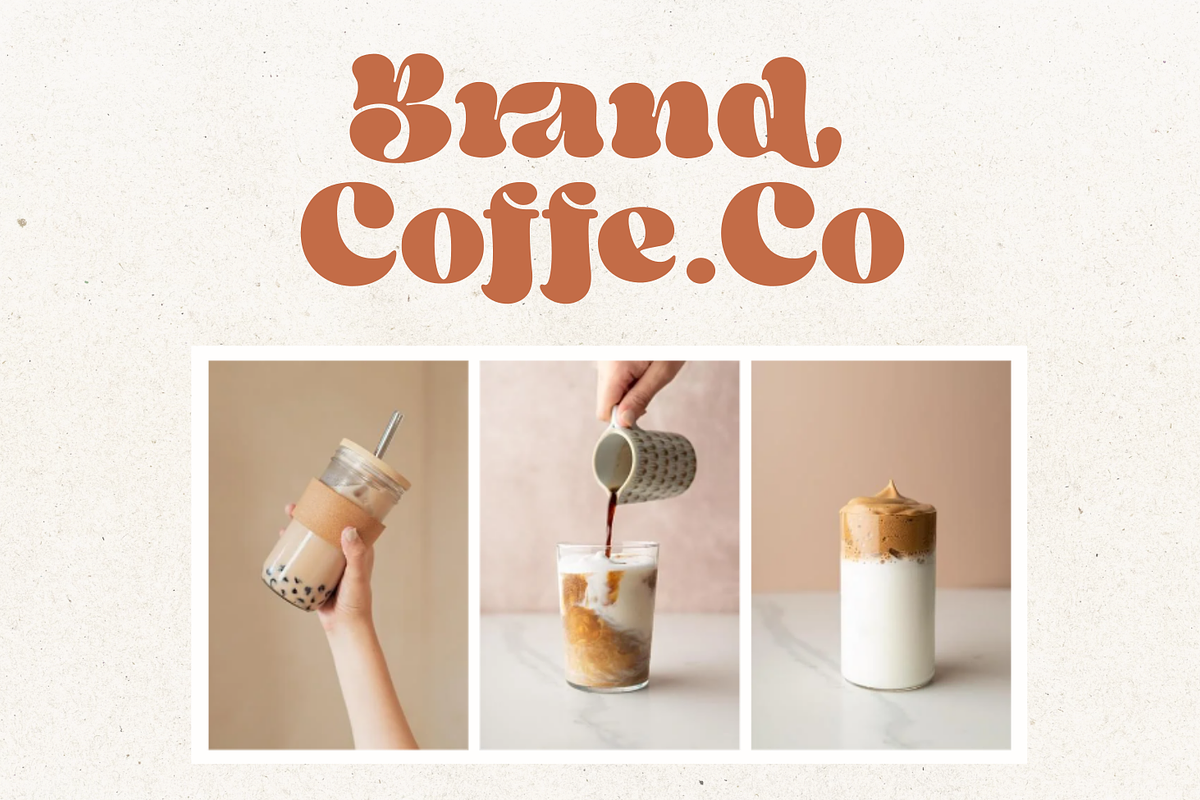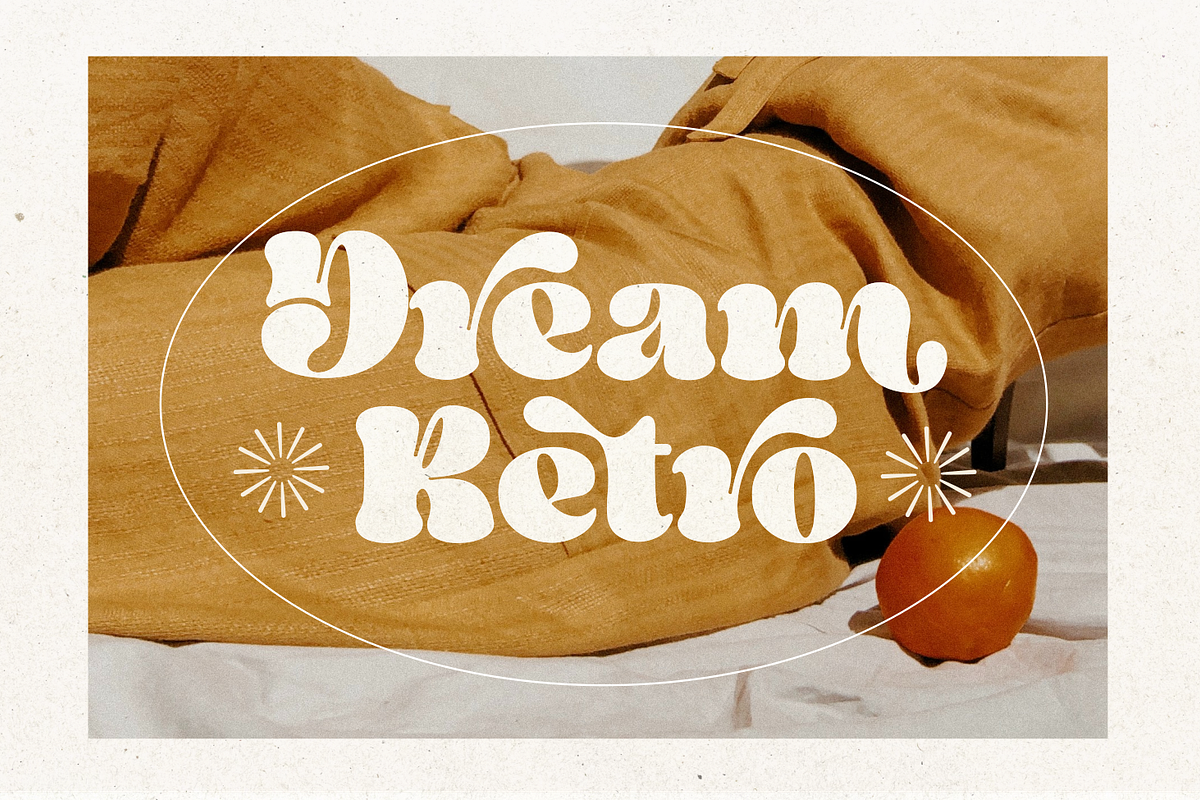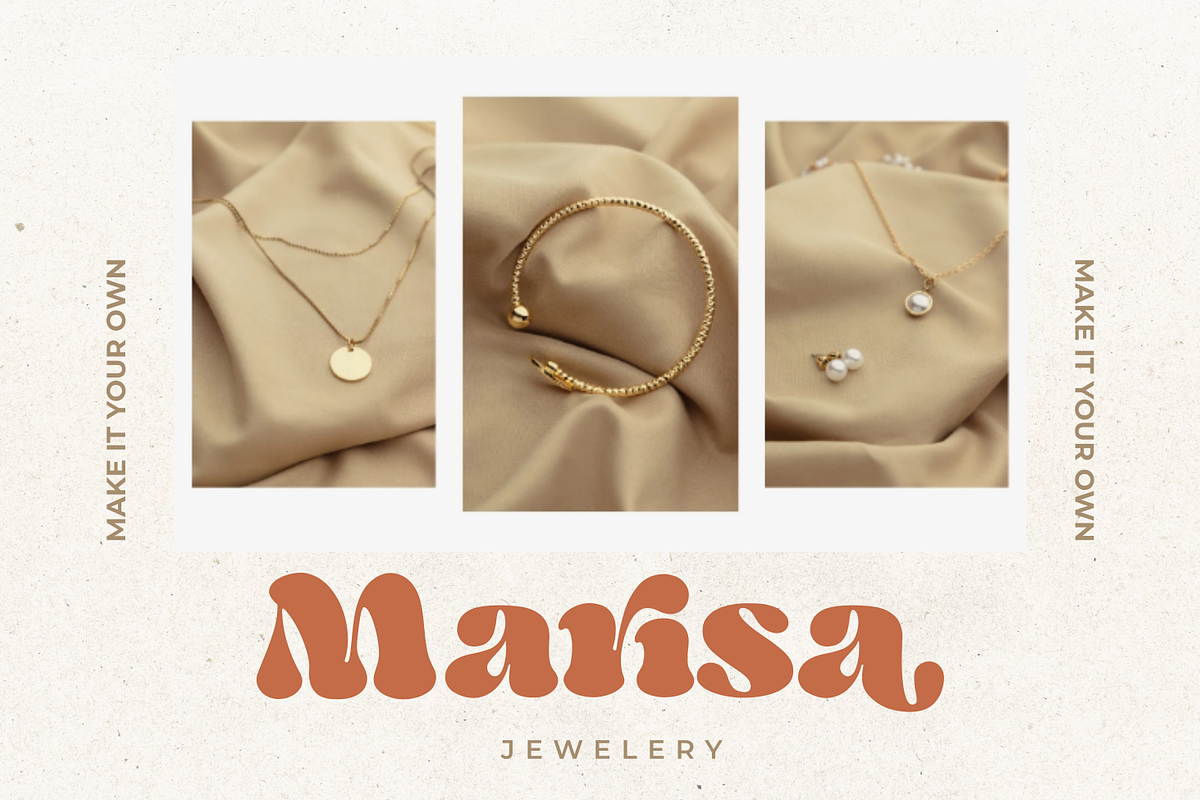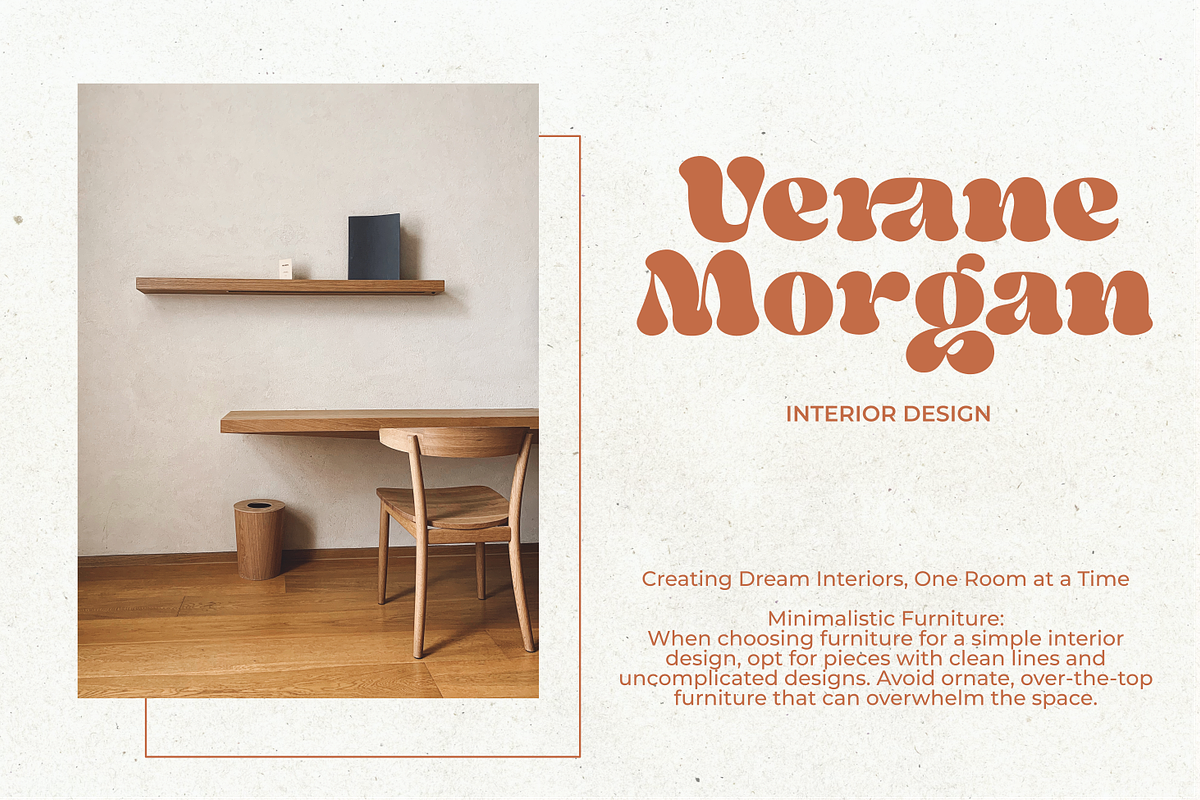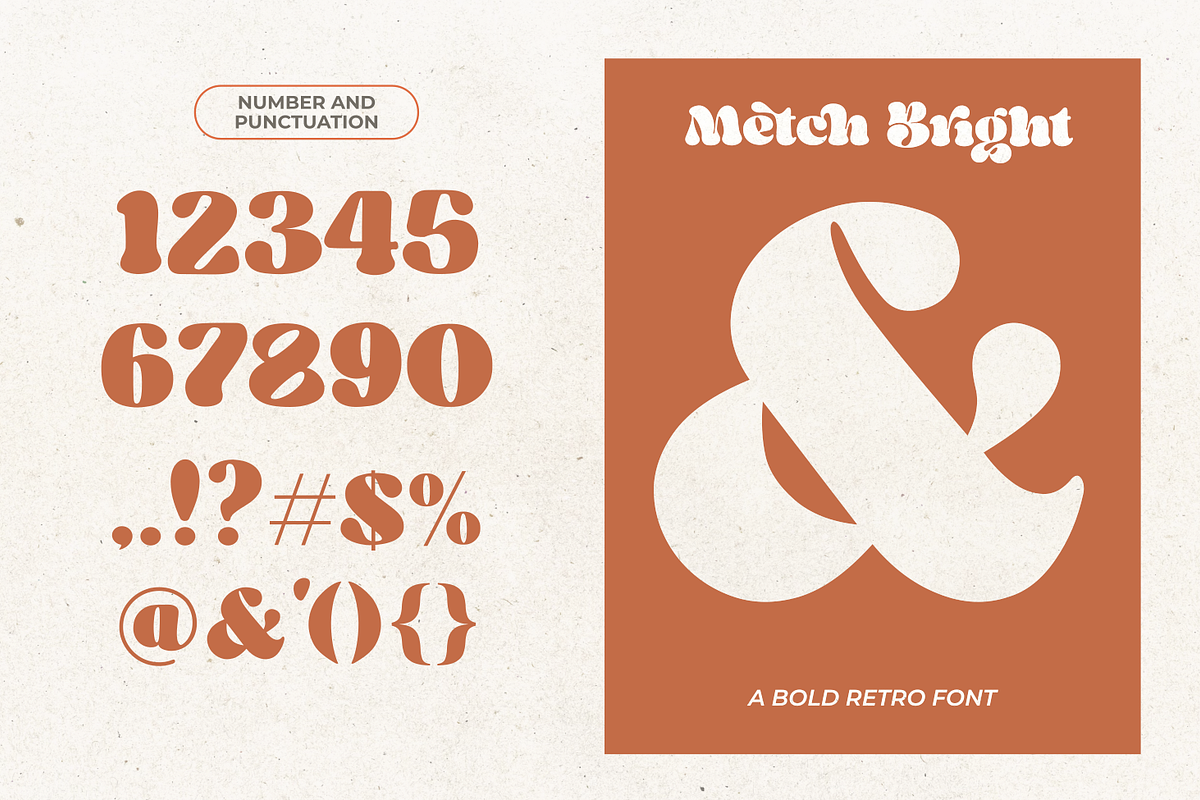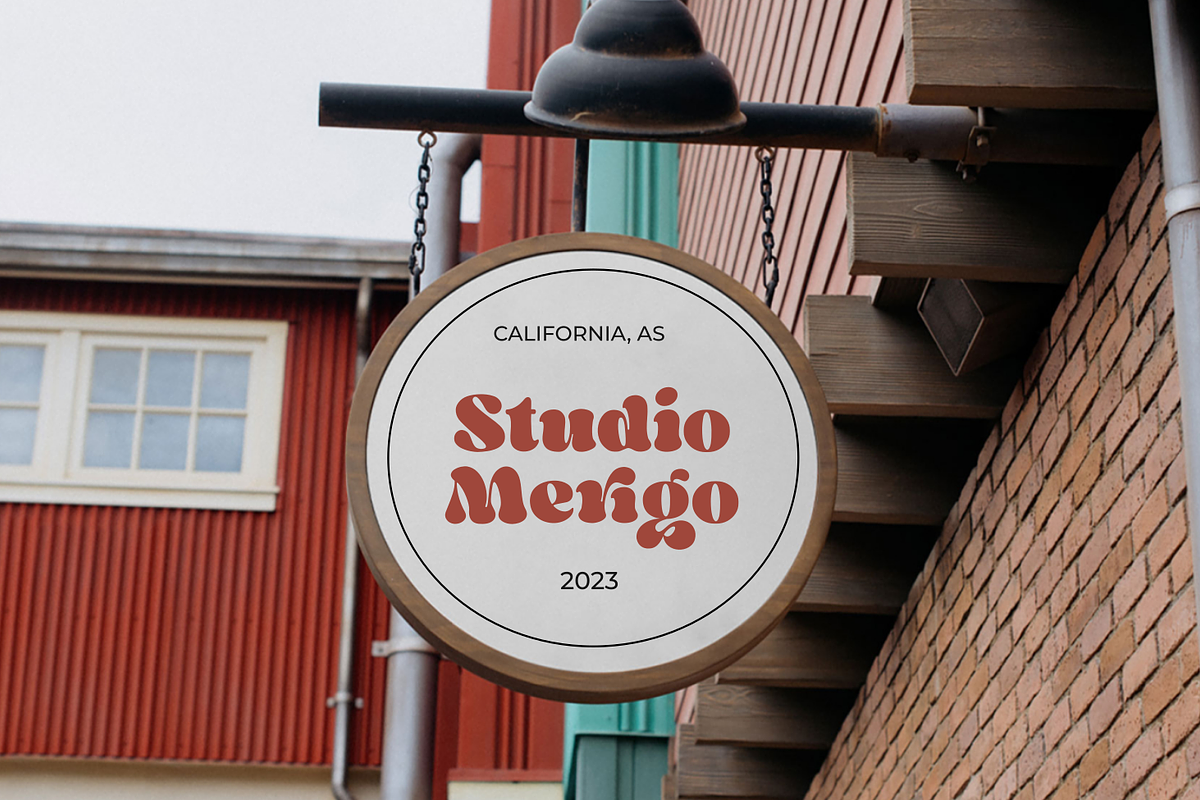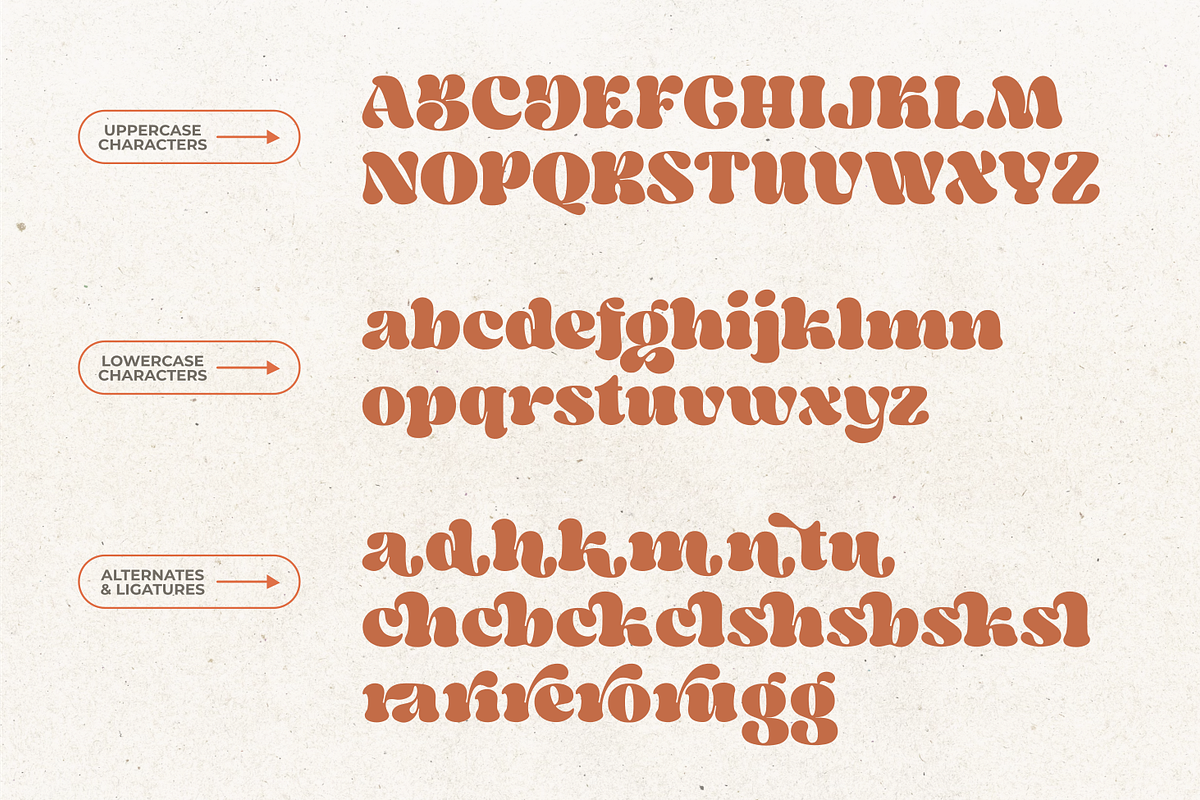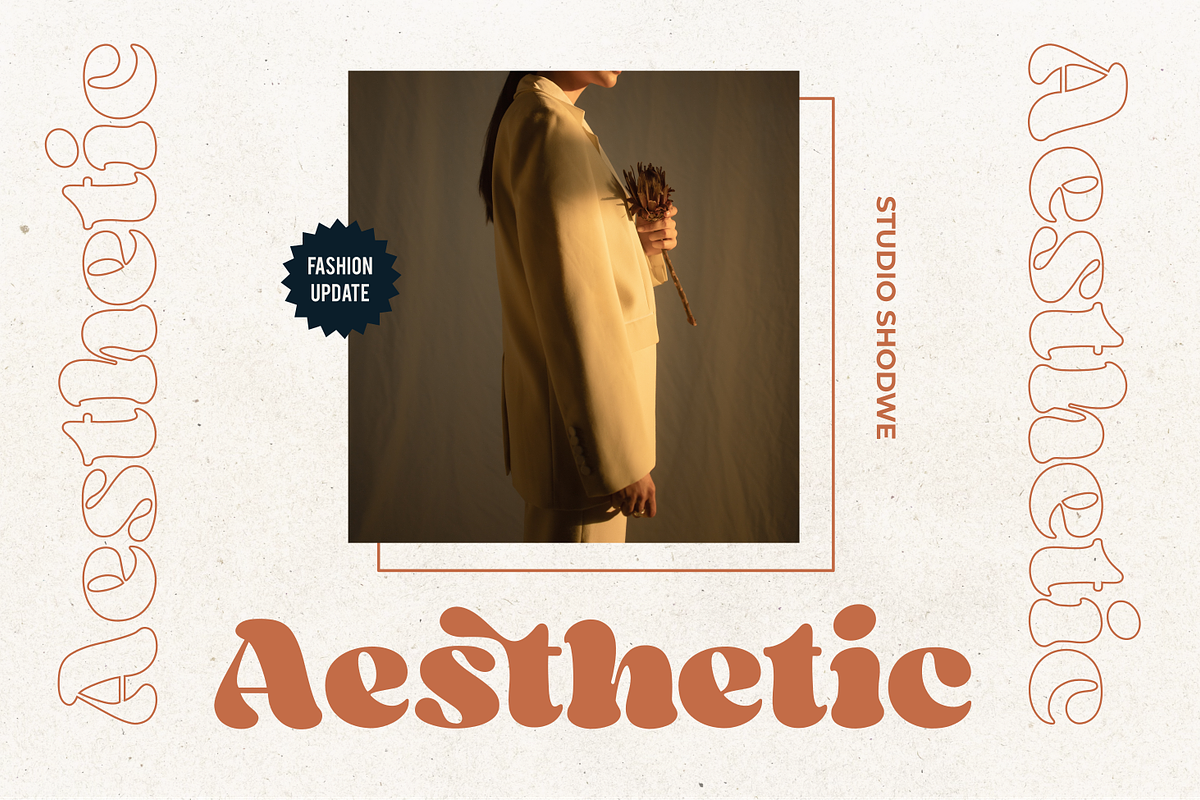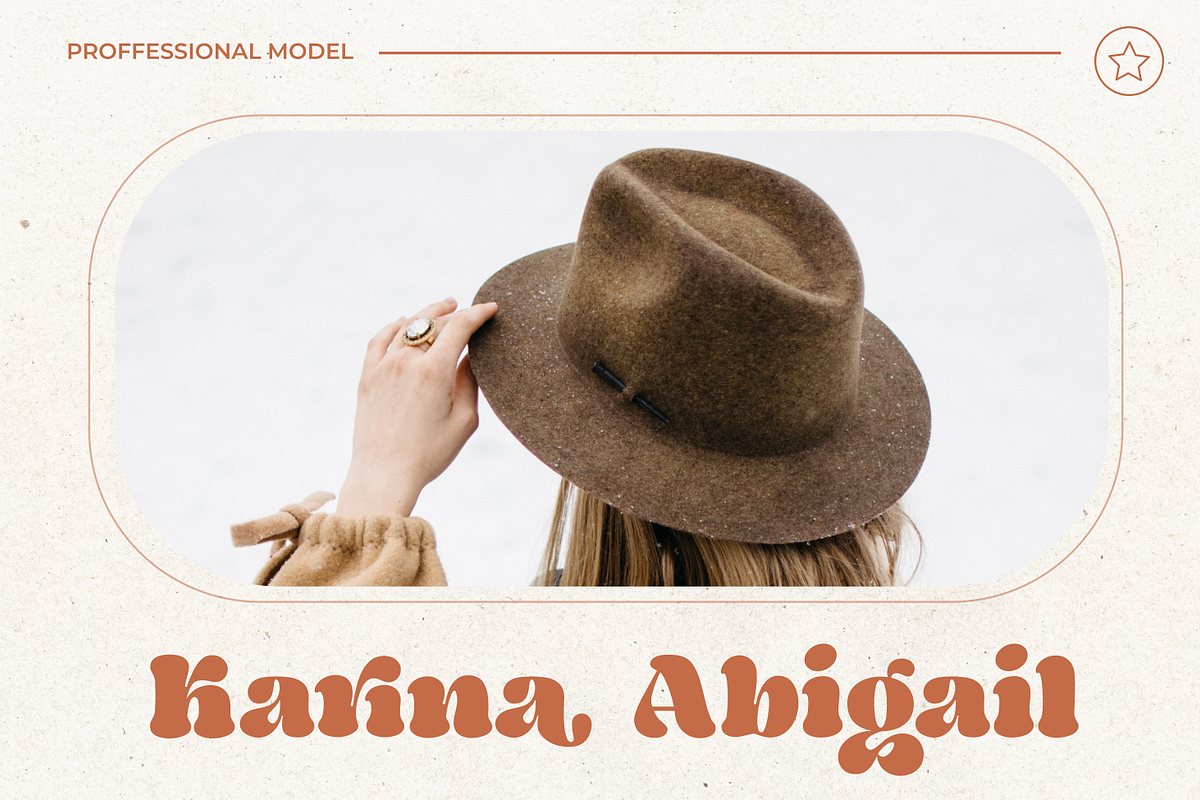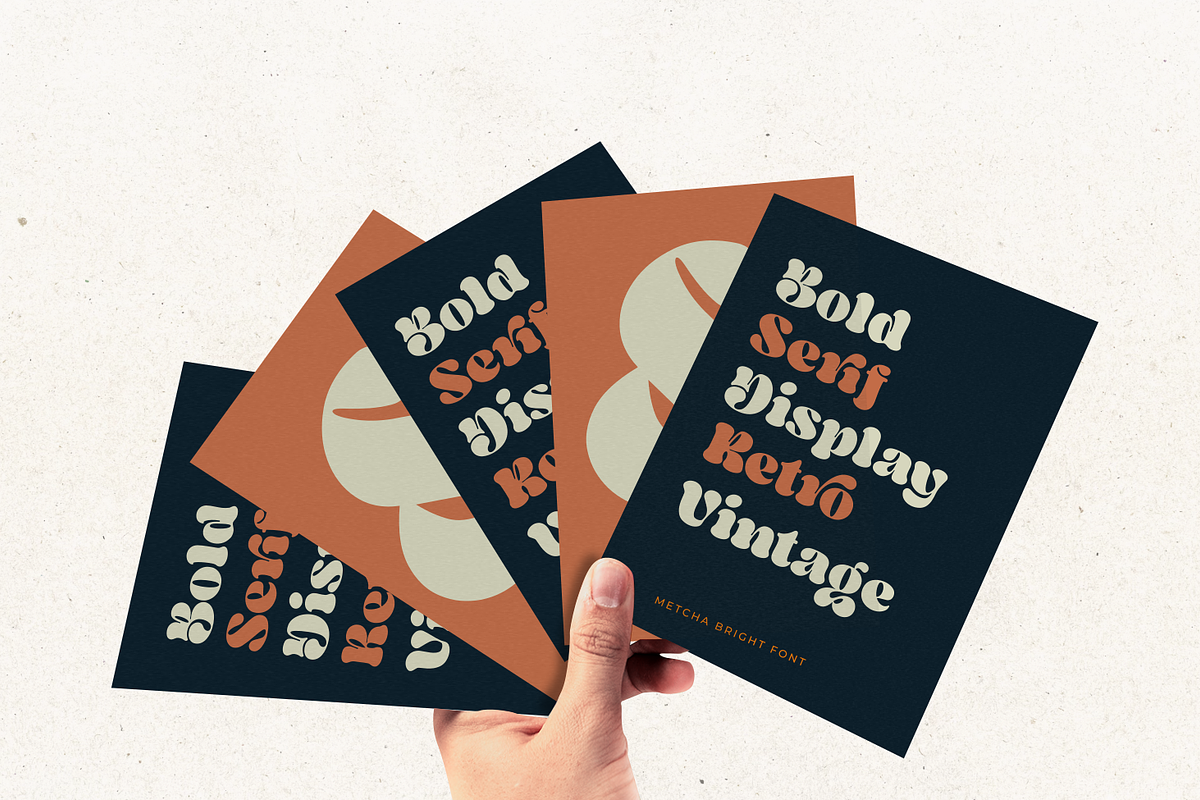
Metch Bright - A Retro Bold Font
Metch Bright is a Bold retro style serif font with strong character and soft features.
Modern and classic serif font with a clear and bold look. It’s a very versatile font that works great in large.
Perfect for editorial projects, Branding, Logo design, web font, clothing branding, product packaging, magazine headers, or simply as a stylish text overlay to any background image.